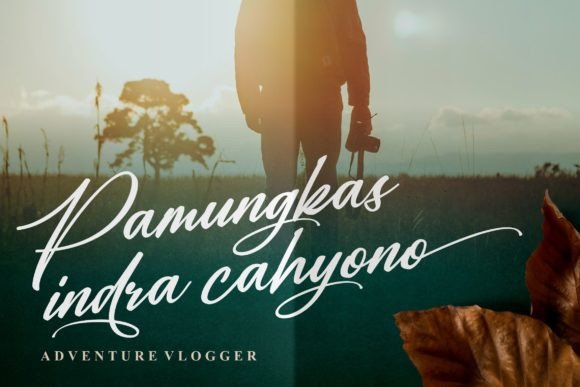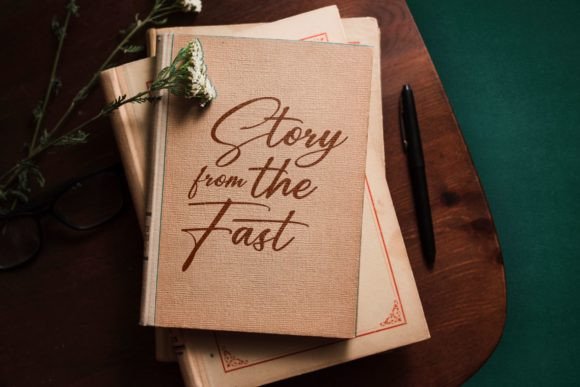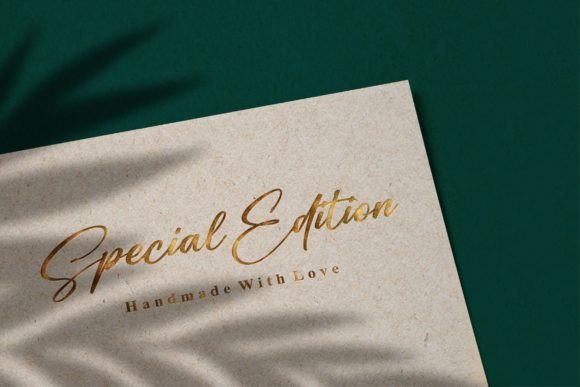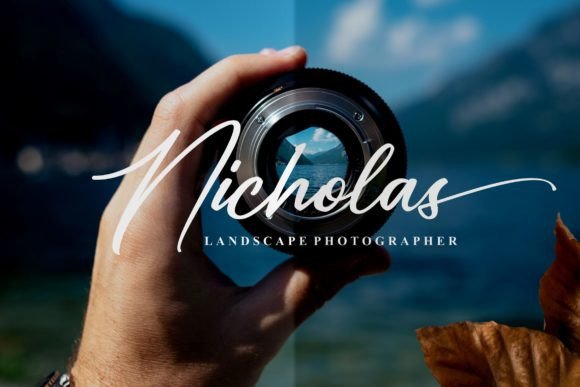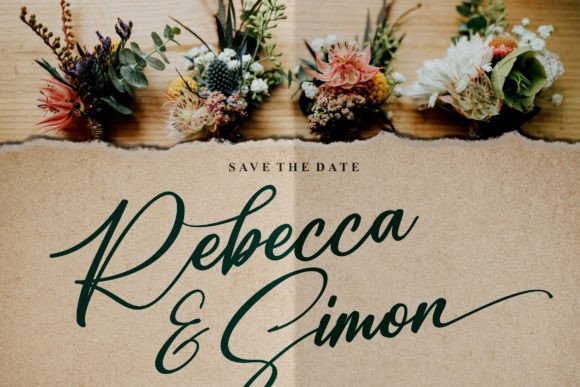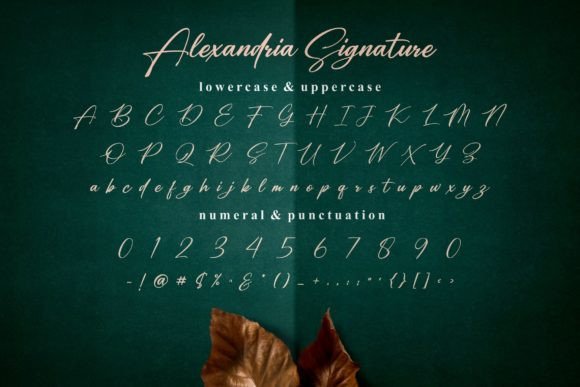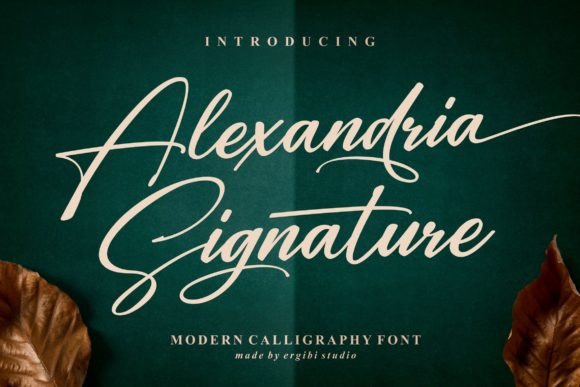
Discover the Elegance of Alexandria Signature Font
Are you on the hunt for a font that exudes elegance and sophistication? Look no further than the Alexandria Signature Font. This beautiful, flowing handwritten font is sure to capture your heart with its incredibly distinct and timeless style. In this article, we’ll dive into the world of Alexandria Signature, exploring its unique features, uses, and benefits for designers and crafters alike.
The Characteristics of Alexandria Signature Font
Alexandria Signature Font is a true masterpiece, boasting an elegant touch that sets it apart from other fonts. Its flowing, handwritten design makes it perfect for a wide range of projects, from wedding invitations and branding materials to social media graphics and digital art. The font’s classic and sophisticated feel ensures that it will never go out of style, making it a valuable addition to any designer’s collection.
What Makes Alexandria Signature Font So Special?
So, what makes Alexandria Signature Font so special? Here are just a few of its standout features:
- Unique and Timeless Style: Alexandria Signature Font boasts an incredibly distinct and timeless style that will make your designs stand out from the crowd.
- Elegant Touch: The font’s elegant touch makes it perfect for projects that require a touch of sophistication and refinement.
- Flowing Handwritten Design: The font’s flowing, handwritten design gives it a personal and organic feel that’s perfect for creating warm and inviting designs.
- Versatile: Alexandria Signature Font is incredibly versatile, making it suitable for a wide range of projects and applications.
Uses for Alexandria Signature Font
Alexandria Signature Font is perfect for a wide range of projects, including:
- Wedding Invitations and Stationery: The font’s elegant and sophisticated feel makes it perfect for wedding invitations, save-the-date cards, and other stationery.
- Branding and Packaging: Use Alexandria Signature Font to create stunning brand identities and packaging that exudes elegance and refinement.
- Social Media Graphics: The font’s flowing, handwritten design makes it perfect for creating eye-catching social media graphics that will help you stand out from the crowd.
- Digital Art and Illustration: Alexandria Signature Font is a great choice for digital artists and illustrators looking to add a touch of elegance and sophistication to their work.
Alexandria Signature Font offers a range of benefits for designers and crafters, including:
- Ease of Use: The font is incredibly easy to use, making it perfect for designers and crafters of all skill levels.
- High-Quality Design: Alexandria Signature Font is designed to the highest standards, ensuring that your designs look professional and polished.
- Time-Saving: With Alexandria Signature Font, you can create stunning designs in no time, saving you time and effort.
| Font Name | Alexandria Signature Font |
| Author | ergibi studio |
In conclusion, Alexandria Signature Font is a must-have for designers and crafters looking to add a touch of elegance and sophistication to their work. With its unique and timeless style, elegant touch, and flowing handwritten design, this font is perfect for a wide range of projects and applications. Whether you’re creating wedding invitations, branding materials, or digital art, Alexandria Signature Font is sure to impress. So why wait? Fall in love with this beautiful font and start creating spectacular designs today!